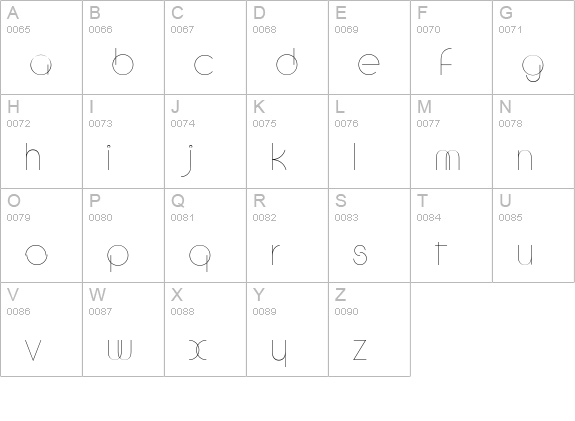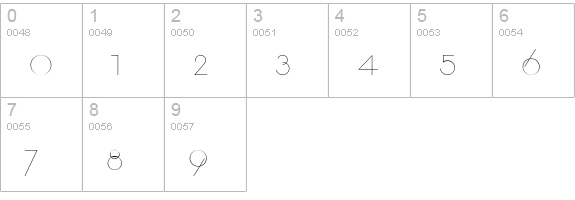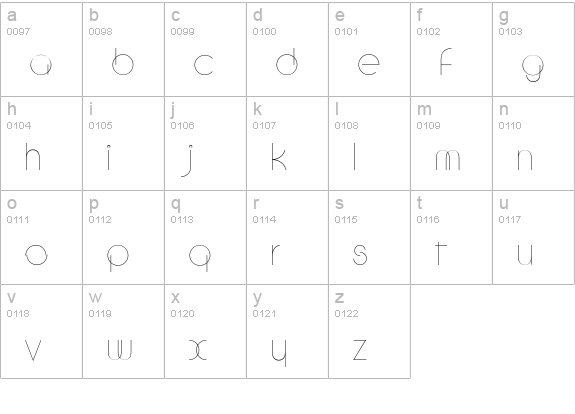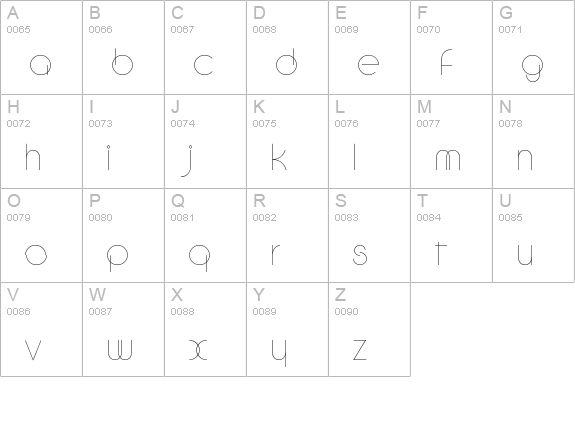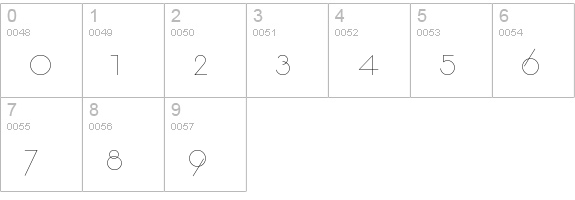
Cycle-Regular is the standard, neutral variant in the Cycle typeface family \xE2\x80\x94 well suited to general body text, paragraphs, and standard typographic work.
Cycle-Regular font is a modern and versatile typeface that combines elegance with readability. Its clean lines and balanced proportions make it suitable for a wide range of design projects, from branding to editorial layouts. The simplicity of Cycle-Regular font allows it to effortlessly convey a sense of sophistication and professionalism. This font is available for free download at FontsMarket.com, making it easily accessible to designers and creatives looking to enhance their work with a high-quality typeface. Whether you're working on a logo, website, or print materials, Cycle-Regular font offers a timeless aesthetic that will elevate your design projects. With its classic yet contemporary appeal, this font is a valuable addition to any designer's toolkit.